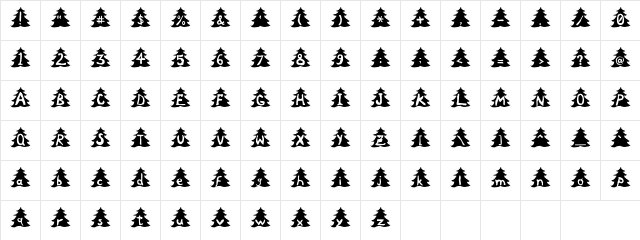
December Regular
Design Context for December Typeface
December is a composed and adaptable typeface that performs quietly and consistently across a wide range of design contexts.